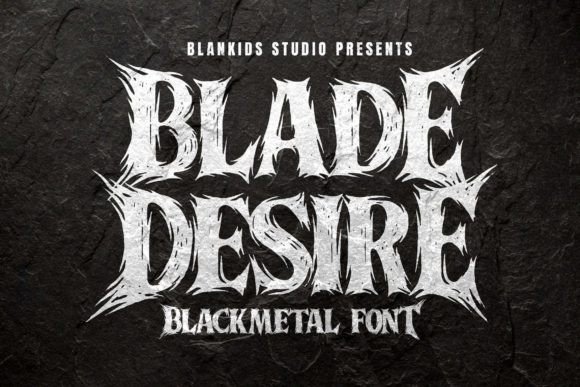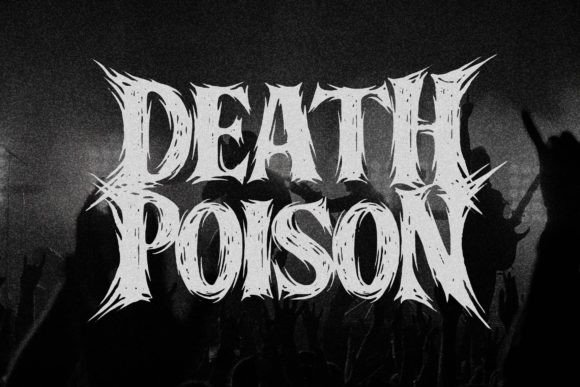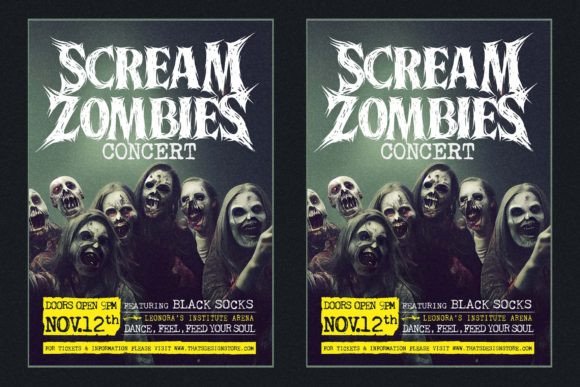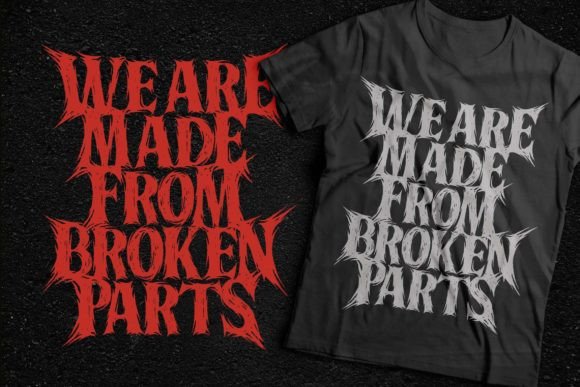
Blade Desire Font
About the Blade Desire Font
Explore the possibilities with Blade Desire Font, a font that offers both beauty and functionality. Blade Desire, a blackmetal font made for any professional project with a metal music theme, such as logotype band, watermarks, album cover, poster band, tshirt band, promotions, product packaging, etc. Every letter has a sharp and rock touch.
Blade Desire font includes a full set of uppercase and lowercase letters, numerals, punctuation, and alternative character.
Blade Desire’s aggressive aesthetic makes it ideal for headlines, posters, and branding projects requiring a bold, rebellious statement. It excels in short, impactful text applications like logos and merchandise designs. However, its highly stylized forms and sharp serifs render it unsuitable for body text or UI elements where readability is paramount. Avoid using it for long paragraphs or situations demanding high legibility.
The font’s core personality is undeniably bold and rebellious, reflecting a raw, powerful energy perfectly suited to metal music-related projects, hard-edged brands, and anything requiring a strong visual impact.